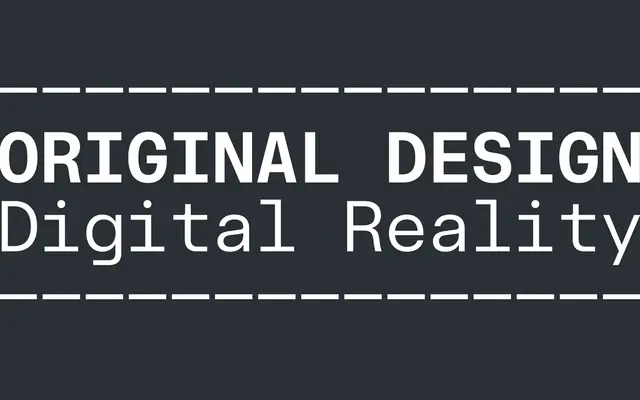
At Haüss Mono
A monospaced neo-grotesque in ten weights with italics, designed for screen performance and drawn from the At Haüss Collection's mid-century grotesque reference points.
Part of Arillatype's At Haüss Collection alongside At Haüss and At Haüss Arabic, the Mono cut runs from the very light Air to the heavy Super, with a dedicated Retina weight optimised for high-density screens. The family ships as 20 static styles and a variable font with weight and italic axes. OpenType features include a semi-mono set, single-storey 'a' alternate, old-style numerals and slashed zero.
A monospaced typeface drawing directly from mid-20th-century neo-grotesque forms, with fixed-width spacing and a clean geometric structure placing it squarely in the mono category.